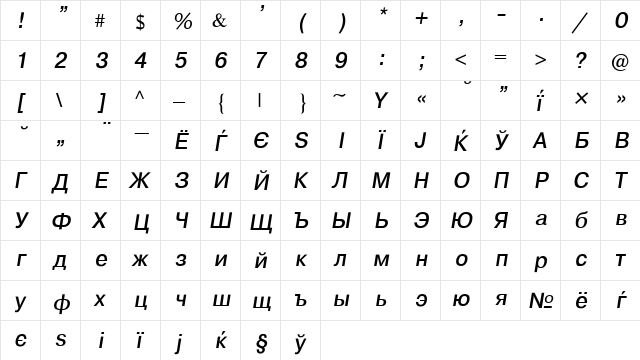
CyrillicHelv Italic
Design Context for CyrillicHelv Typeface
CyrillicHelv takes a measured approach to typography — its balanced proportions and neutral character make it a reliable workhorse for both digital and print work. Its italic angle brings a sense of urgency and motion to the letterforms.